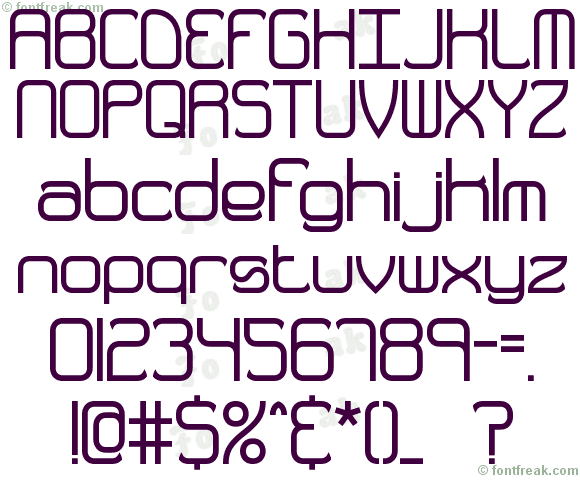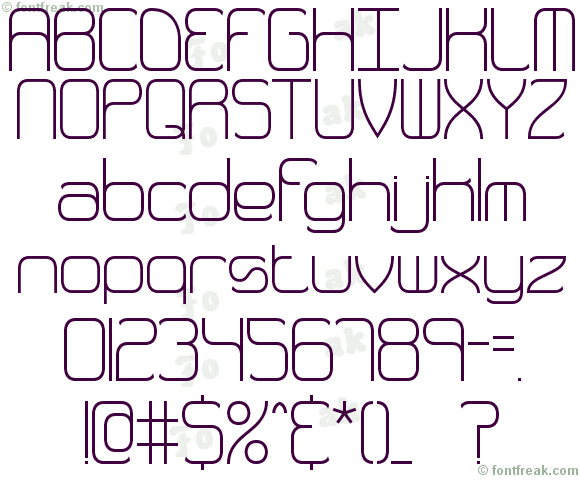
Quarterly Thin BRK
Quarterly Thick BRK
The Quarterly font by Ænigma Fonts is a distinctive display typeface that captures attention with its unique blend of thin and thick strokes. This font stands out in the realm of typography, primarily due to its modern yet elegant aesthetic that suits a variety of design contexts. With its striking contrast and well-balanced spacing, Quarterly exhibits a sophisticated character that is ideal for both digital and print applications.
Visually, Quarterly features a playful mix of thin and thick strokes, creating an engaging rhythm that guides the eye. The clean lines and subtle decorative elements add a touch of flair without overwhelming the reader. This makes the font versatile, allowing it to shine in various design scenarios. Its unique structure makes it perfect for use in wedding invitations, where elegance is key, as well as in movie posters that require a bold visual statement. Additionally, it can enhance restaurant menus, providing a modern touch that appeals to patrons. Content creators will also find it useful for social media graphics, helping to elevate their branding with a chic, contemporary look.
What truly sets the Quarterly font apart is its ability to effortlessly blend sophistication with approachability. It provides a fresh take on traditional display fonts, making it a standout choice for anyone in need of a versatile, eye-catching typeface. For those interested, a Quarterly font free download is readily available, encouraging creative exploration without the constraints of licensing fees.